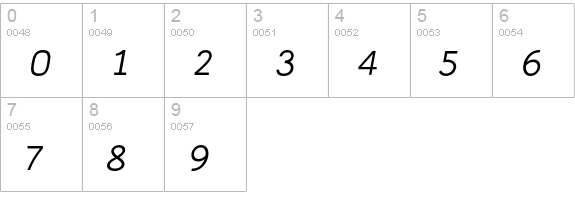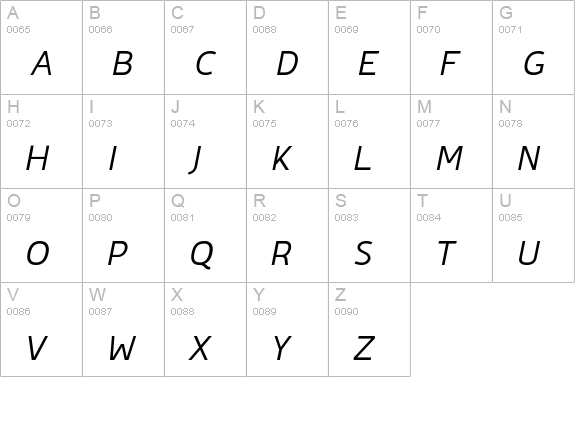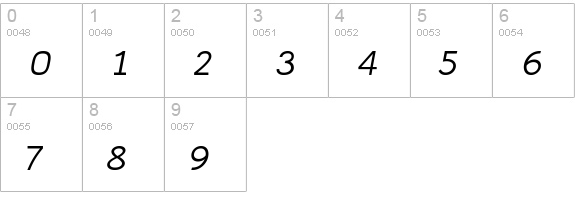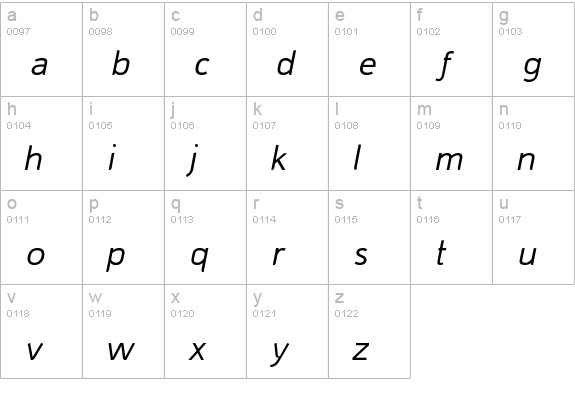
Domestos98-ThinItalic Font Details
Domestos98-ThinItalic is a sleek and elegant font that exudes sophistication and modernity. Its thin and italicized design adds a touch of finesse to any project, making it perfect for a wide range of applications such as branding, design, and editorial work. The clean lines and subtle curves of Domestos98-ThinItalic create a sense of refinement and professionalism, making it an ideal choice for those looking to add a touch of elegance to their designs. The best part? Domestos98-ThinItalic is available for free download at FontsMarket.com, allowing you to easily access this stylish font and incorporate it into your projects without any cost. With its versatility and timeless appeal, Domestos98-ThinItalic is sure to elevate your designs and leave a lasting impression on your audience.